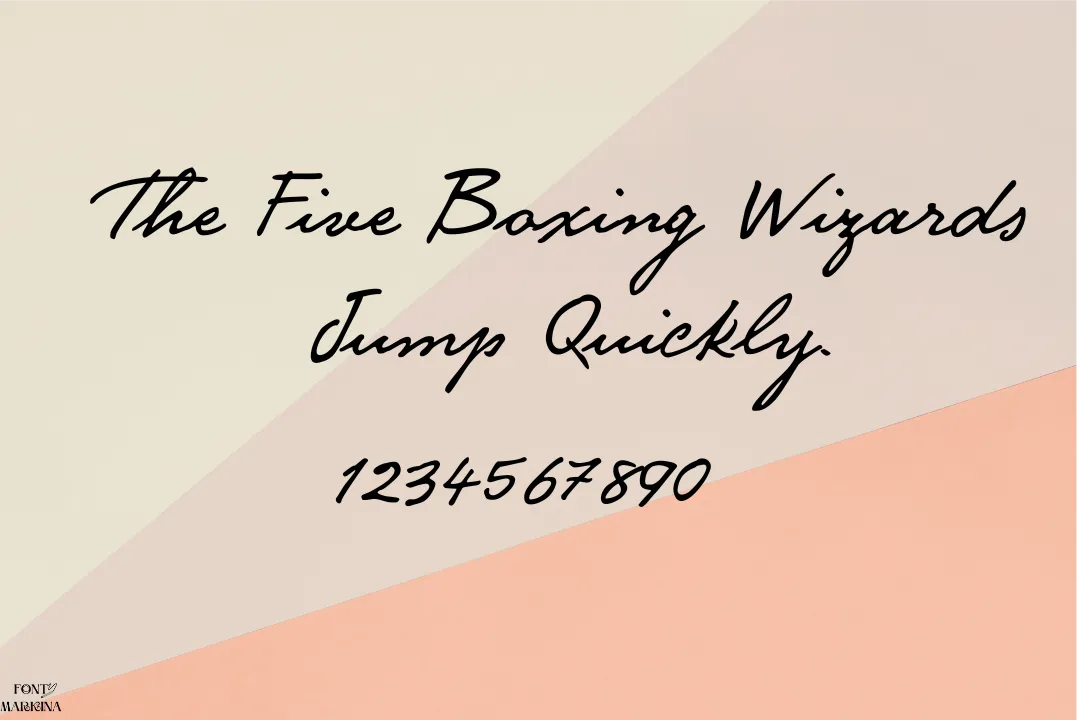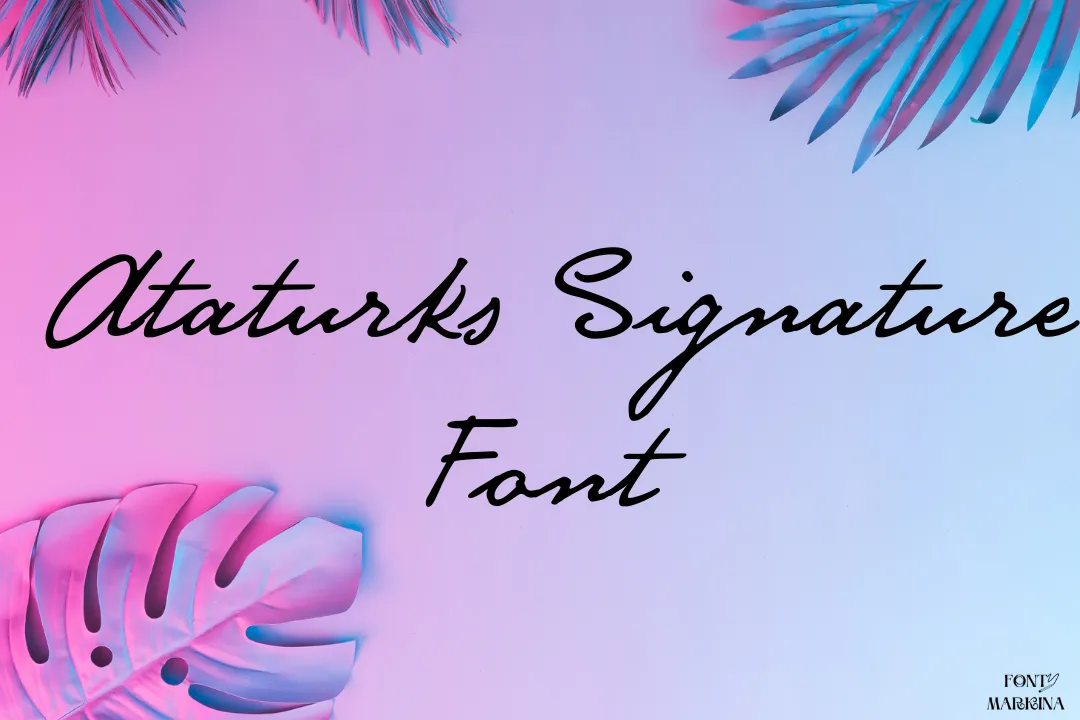
Ataturk’s Signature Font is a modern and different typography as compared to others. Mustafa Kemal Ataturk is the main and original manufacturer of this font family. This texture falls in the classification of the Handwritten family.
Because of its classic handwritten look, this typeface is popular all across the globe. The typeface letters are very classic and modern. This typography is effective for use in MAC and Windows, and even in Adobe Projects. The uppercase and lowercase characters of this family make it more definitive as compared to others.
The very popular tool that is known as an online generator tool is very helpful in the case of graphic designs. Mainly this typeface is familiar for its copy and paste function that is helpful in case of colorful graphic designs.
Uses of Ataturks Signature Font
Bue to its classic handwritten look and signature-type strokes everyone wishes to use this font for their projects. Especially for headlines, titles, newspaper writing, and much more. This typography is well-suitable for Stadium branding. A vast variety of Youtubers and video editors use this texture.
Many expert designers make the pairing of Antro Vectra font with this typography and achieve more extraordinary results. Mostly, this font family is used for different types of game interfaces. Even now this family is used in newsletters and maintaining records and reports.
Ataturk’s Signature Font View
| Name | Ataturk's Signature Font |
| Designer | Mustafa Kemal Ataturk |
| Type | Handwritten |
What is the type of Ataturk’s Signature Font?
This stunning typeface has signature type strokes and a handwritten look that makes it more classic.